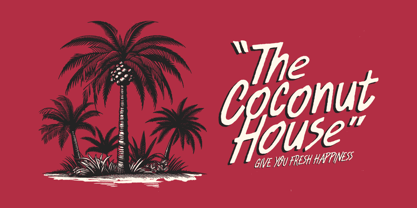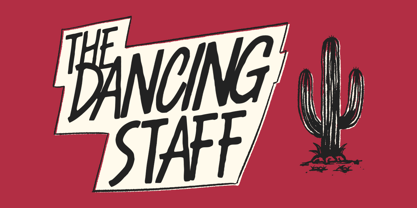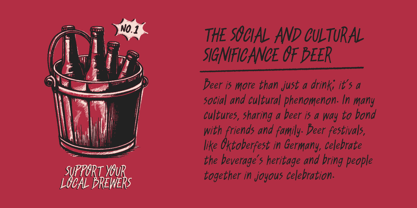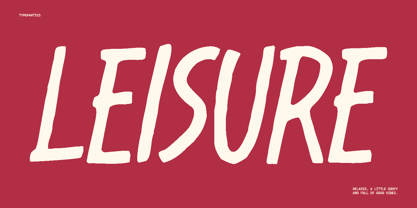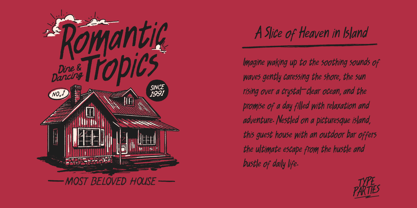
ATP Leisure
by Typeparties
The ATP Leisure Font Family was designed by Thufail Al ghifary and published by Typeparties. ATP Leisure contains 1 styles. More about this family
This font embodies the spirit of your favorite weekend buddy—relaxed, slightly goofy, and brimming with good vibes. The tall, playful letters lean just enough to convey a sense of chill while maintaining a stylish flair. Perfect for sunny posters, beach-themed invitations, or any project that embraces a lighthearted approach to life. Its handwritten quality adds a quirky charm, reminiscent of doodles created on a leisurely Sunday afternoon. Ideal for branding, web design, and editorial use, this font brings a delightful touch to any creative endeavor.
Designers: Thufail Al ghifary
Foundry: Typeparties
ATP Leisure